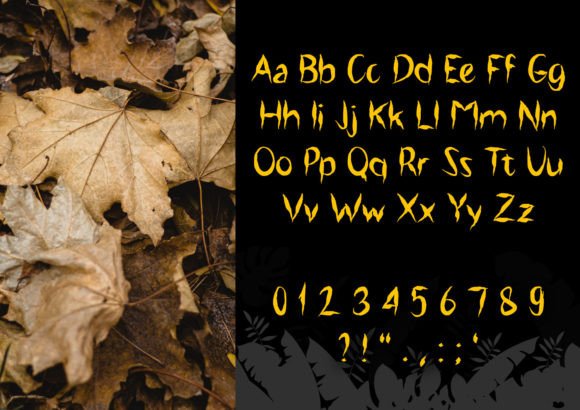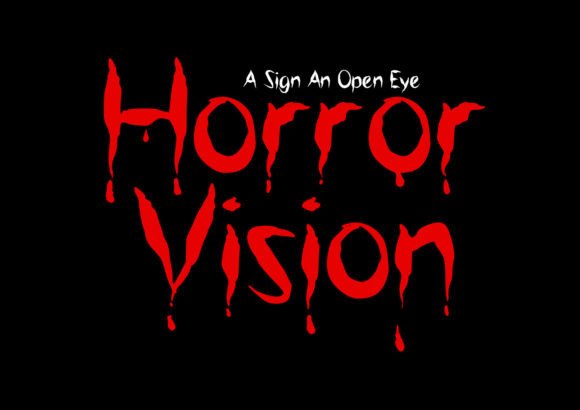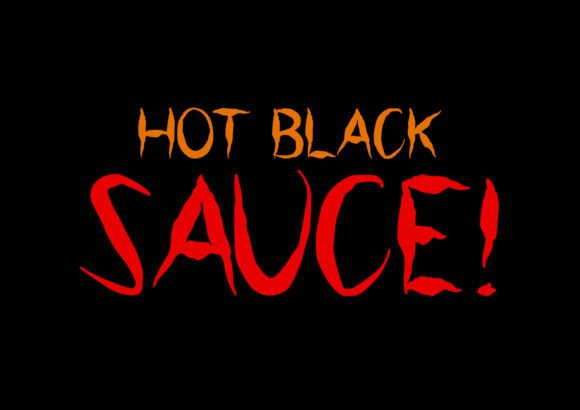
Dried Leaves Font: Add a Touch of Whimsy to Your Designs
Are you looking for a unique and eye-catching font to add a touch of personality to your designs? Look no further than the Dried Leaves Font, a fun and quirky handwritten display font inspired by dry leaves. This typeface is perfect for designers and crafters who want to add a spicy, horror look to their branding, posters, apparel, merchandise, stickers, or any other project that needs a bit of whimsy.
What is Dried Leaves Font?
Dried Leaves Font is a handwritten display font that features a distinctive, organic look inspired by dry leaves. The font is designed to resemble the natural, crinkled texture of dried leaves, giving it a unique and eye-catching appearance. The font is perfect for use in a variety of design projects, from branding and advertising to crafting and DIY projects.
Key Features of Dried Leaves Font
- Unique and Quirky Design: The Dried Leaves Font features a one-of-a-kind design that is sure to grab attention and add a touch of personality to your designs.
- Handwritten Display Font: This font is perfect for use in headlines, titles, and other display text where you want to make a bold statement.
- Inspired by Dry Leaves: The font’s design is inspired by the natural texture of dry leaves, giving it a organic and earthy feel.
- Perfect for Horror and Spicy Designs: The Dried Leaves Font is ideal for designers who want to add a touch of horror or whimsy to their designs.
Uses for Dried Leaves Font
The Dried Leaves Font is versatile and can be used in a variety of design projects, including:
- Branding: Use the Dried Leaves Font to create unique and eye-catching logos and branding materials.
- Posters: Add a touch of whimsy to your posters and flyers with this fun and quirky font.
- Apparel: Use the Dried Leaves Font to create eye-catching t-shirt designs, stickers, and other apparel.
- Merchandise: The font is perfect for use on merchandise such as mugs, tote bags, and other promotional items.
- Stickers: Use the Dried Leaves Font to create fun and quirky stickers that are perfect for laptops, water bottles, and other items.
Why Choose Dried Leaves Font?
There are many reasons why designers and crafters should choose the Dried Leaves Font for their projects. Here are just a few:
- Unique Design: The Dried Leaves Font features a unique and eye-catching design that is sure to grab attention.
- Versatile: The Dried Leaves Font can be used in a variety of design projects, from branding and advertising to crafting and DIY projects.
Tips for Using Dried Leaves Font
Here are a few tips for using the Dried Leaves Font in your designs:
- Use it as a Display Font: The Dried Leaves Font is perfect for use as a display font in headlines and titles.
- Experiment with Colors: The font looks great in a range of colors, so don’t be afraid to experiment and find the perfect color for your design.
- Pair it with Other Fonts: The Dried Leaves Font pairs well with other fonts, so try pairing it with a sans-serif font for a bold and eye-catching look.
The Dried Leaves Font is a fun and quirky handwritten display font that is perfect for designers and crafters who want to add a touch of whimsy to their designs. With its unique and eye-catching design, this font is sure to grab attention and add a spicy, horror look to your branding, posters, apparel, merchandise, stickers, or any other project that needs a bit of personality. So why not give it a try and see how it can add a touch of magic to your designs?